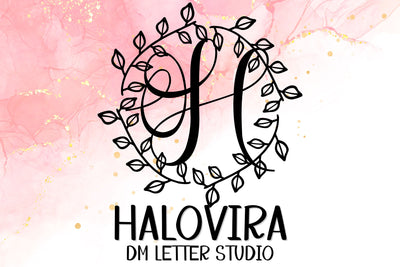
Halovira Monogram
Halovira Monogram – Elegant Serif Monogram with Whimsical Botanical Flair
Halovira Monogram is a graceful serif monogram font infused with whimsical botanical elements. Each letter is carefully crafted with refined lines and charming floral flourishes, perfect for those looking to add elegance and natural beauty to their personalized projects. Ideal for wedding materials, branding, or thoughtful gifts, this font brings sophistication to every letter.
Elegant Monogram Style: Classic serif letters adorned with delicate botanical embellishments.
Nature-Inspired Detailing: Subtle floral and leafy accents enhance its timeless appeal.